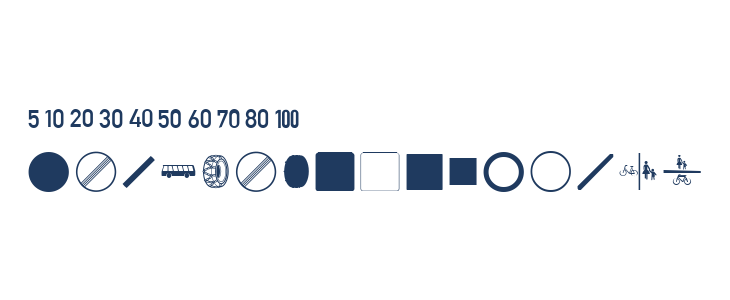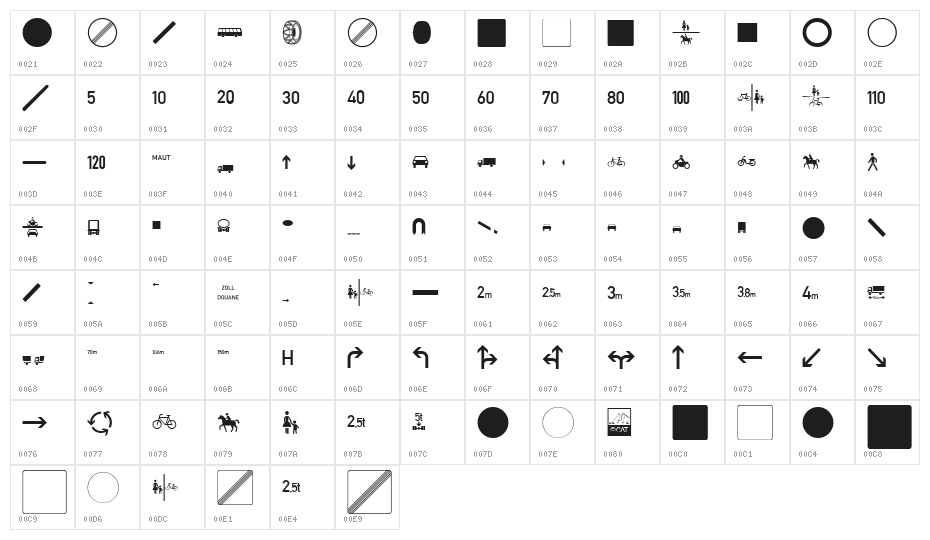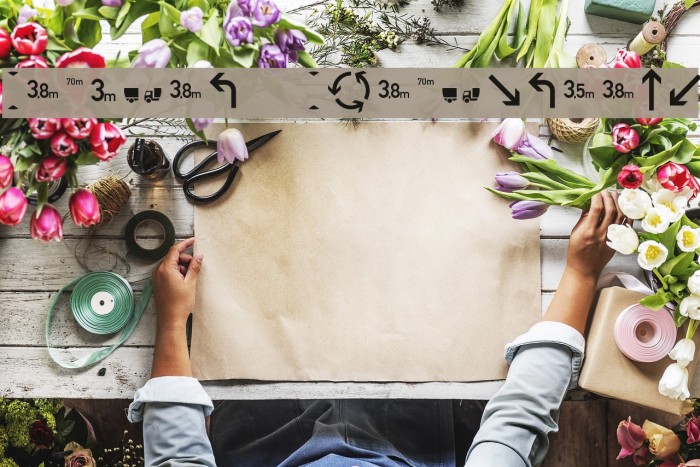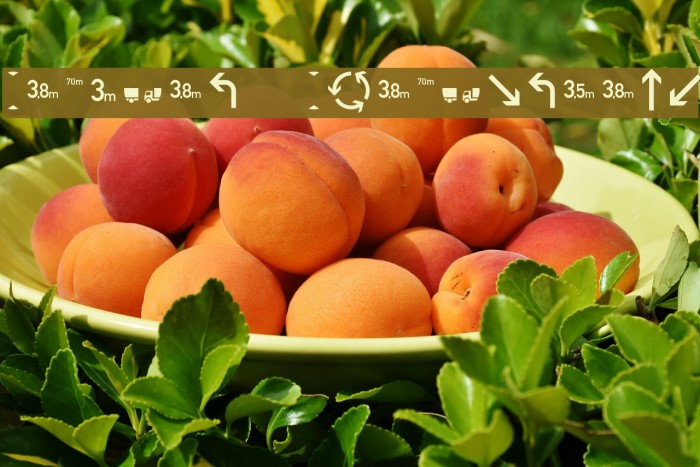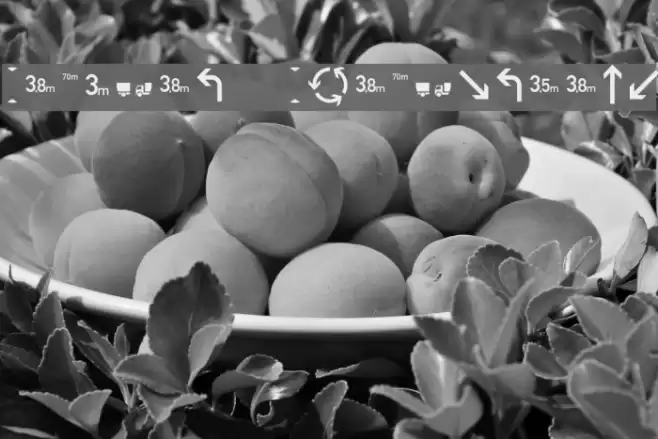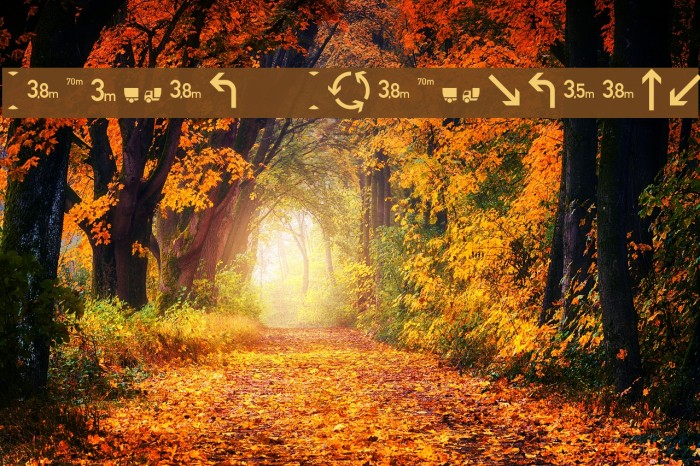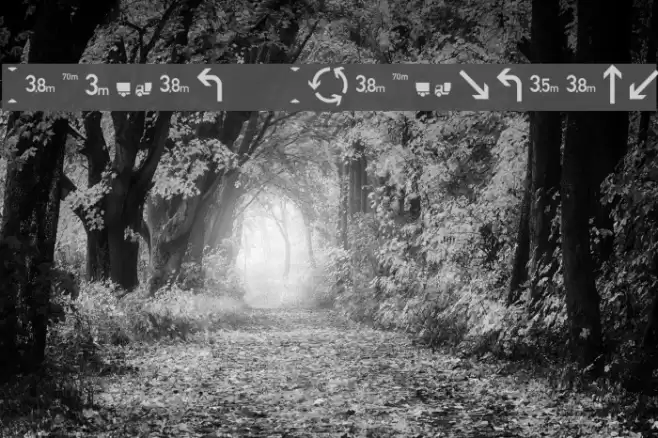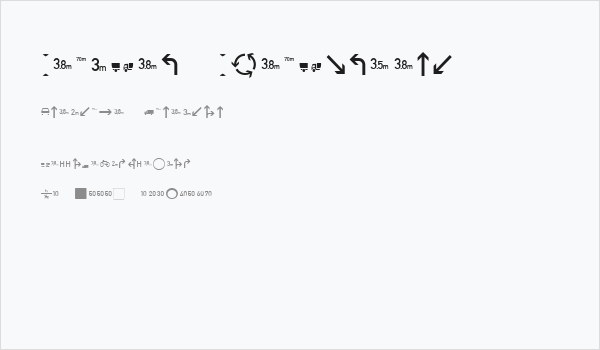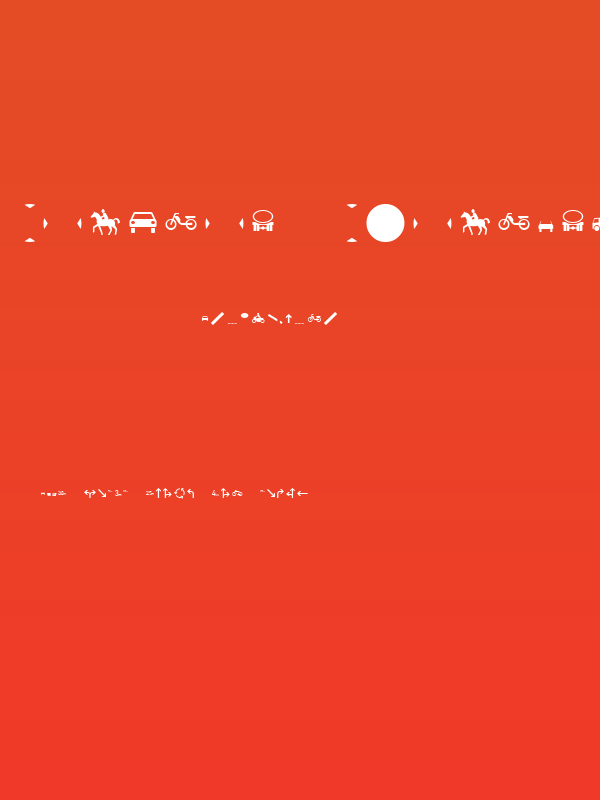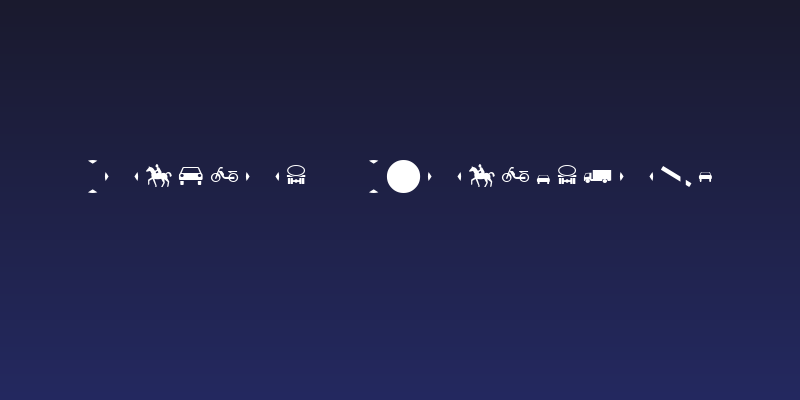
Zeichen Zweihundert Font
Zeichen Zweihundert Description
This collection features a series of pictograms and symbols commonly used in traffic and transportation signage. The icons include various vehicles like cars, bicycles, and motorcycles, as well as directional arrows and measurements. The style is utilitarian and straightforward, designed for clear communication in public spaces. The symbols are bold and easily recognizable, ensuring they can be quickly understood by viewers. This set is ideal for use in environments where clear and immediate understanding is crucial, such as road signs, maps, and transportation guides.
| Use Case | Signage, Maps, Public Information |
| Proposed Projects | Ideal for road signage, transportation maps, public information displays, and instructional guides. |